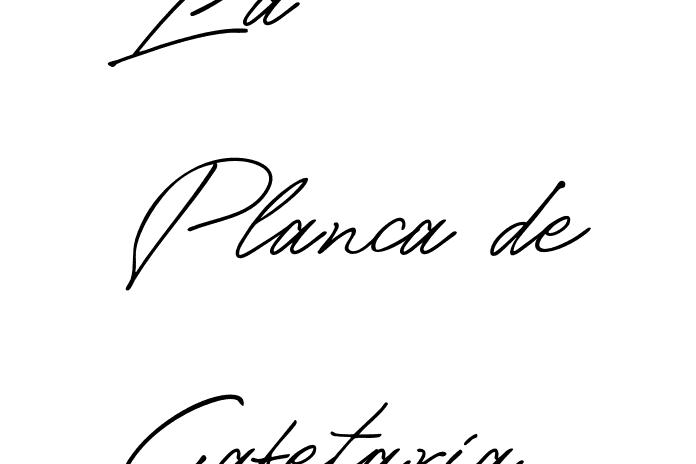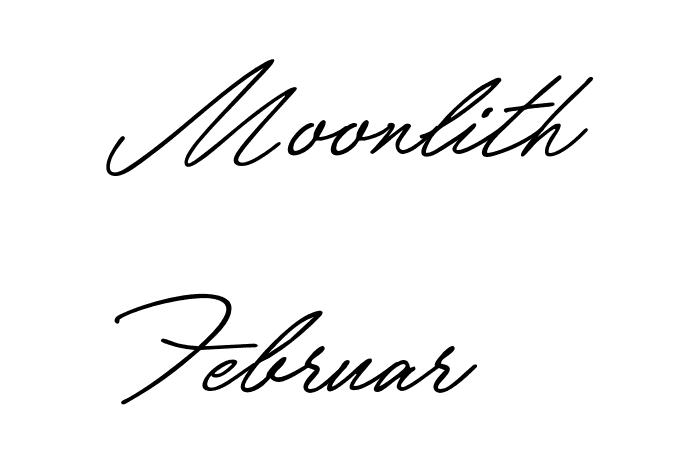
Lostmoond Free
Lostmoond font It’s a gorgeous and bold hand-drawn typeface, crafted to give your headlines and logotype projects a retro touch. Its unique flow and style make it perfect to use for prints, logos, logos & branding, invitations, stationery, wedding designs, social media posts, advertisements, product packaging, product designs, labels, photography, watermarks, special events, or anything. Thanks to Temp Craft for providing us with this exquisite font! However, Lostmoond Script Font only available for personal use
Font designer Typetemp
Typeface classification Calligraphy,Script